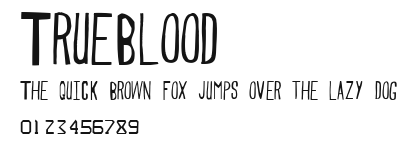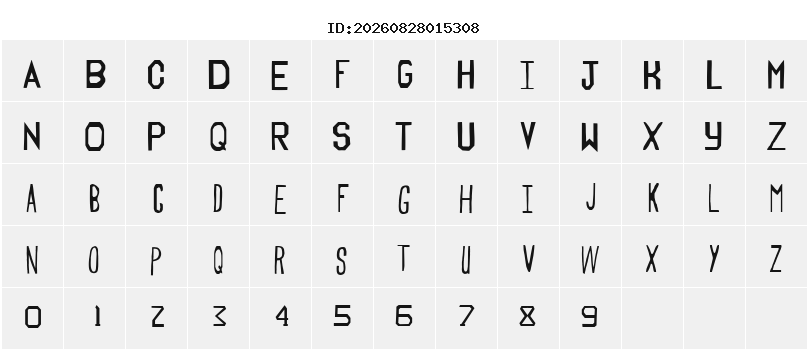
Trueblood Preview
• Font Name: Trueblood
• Full Font Name: Trueblood
• PostScript Name: Trueblood
• Designer: SpideRaY
About Trueblood.ttf
Trueblood.ttf is a modern, elegant sans-serif font designed for ultimate readability and visual harmony. Perfect for branding, headlines, web design, and print materials.